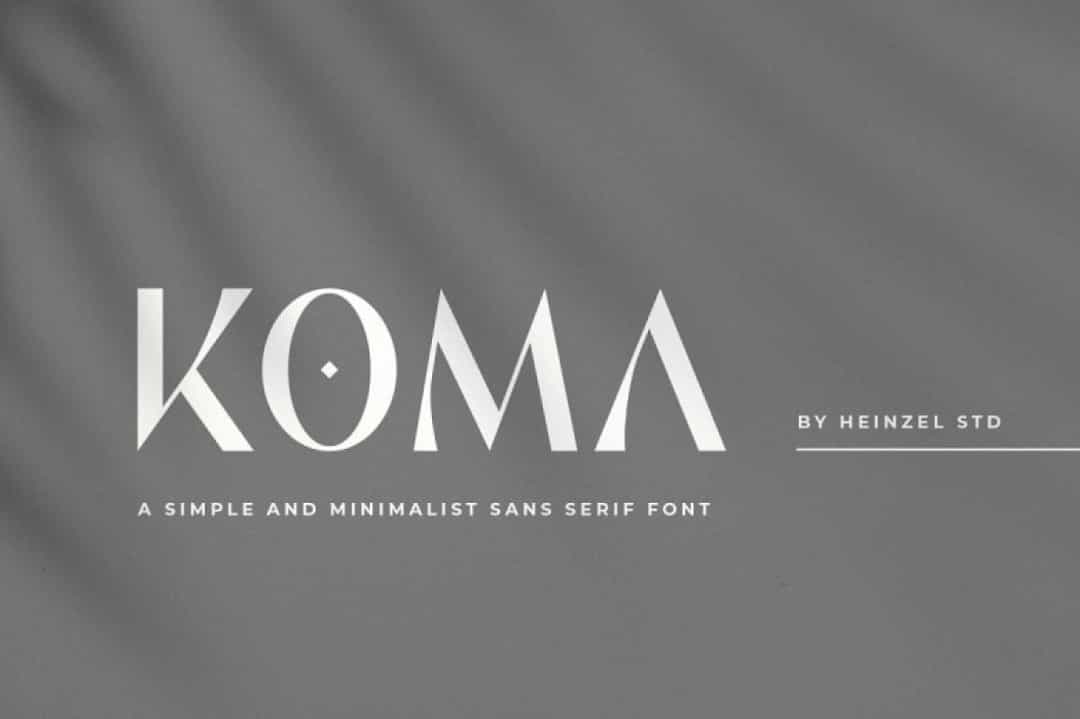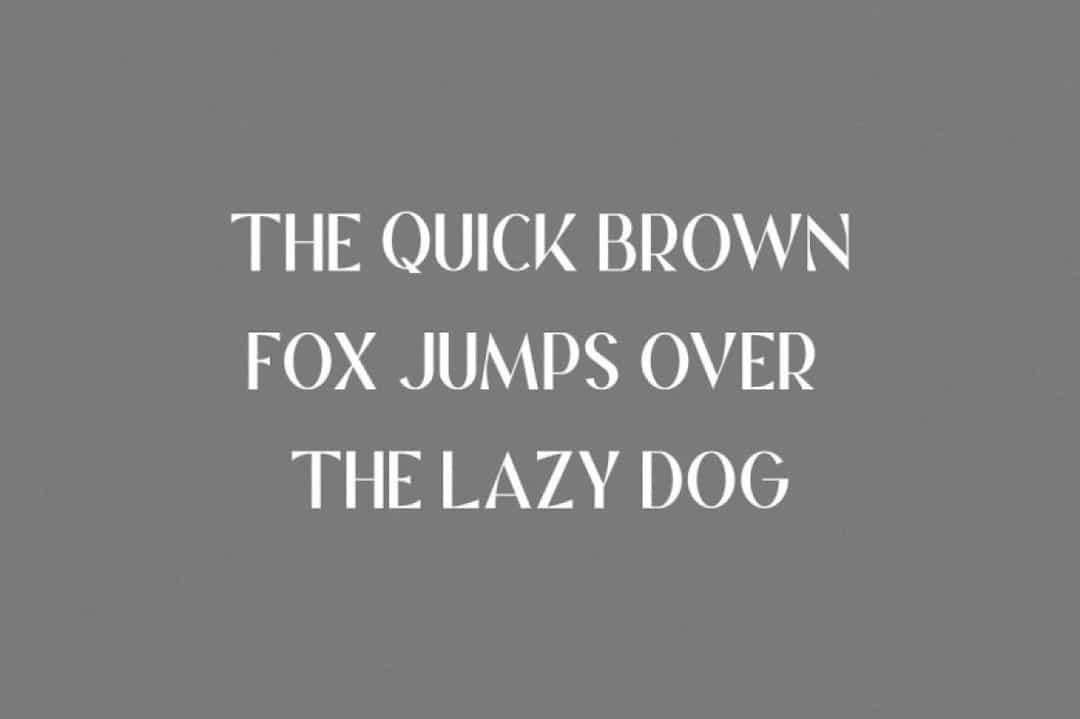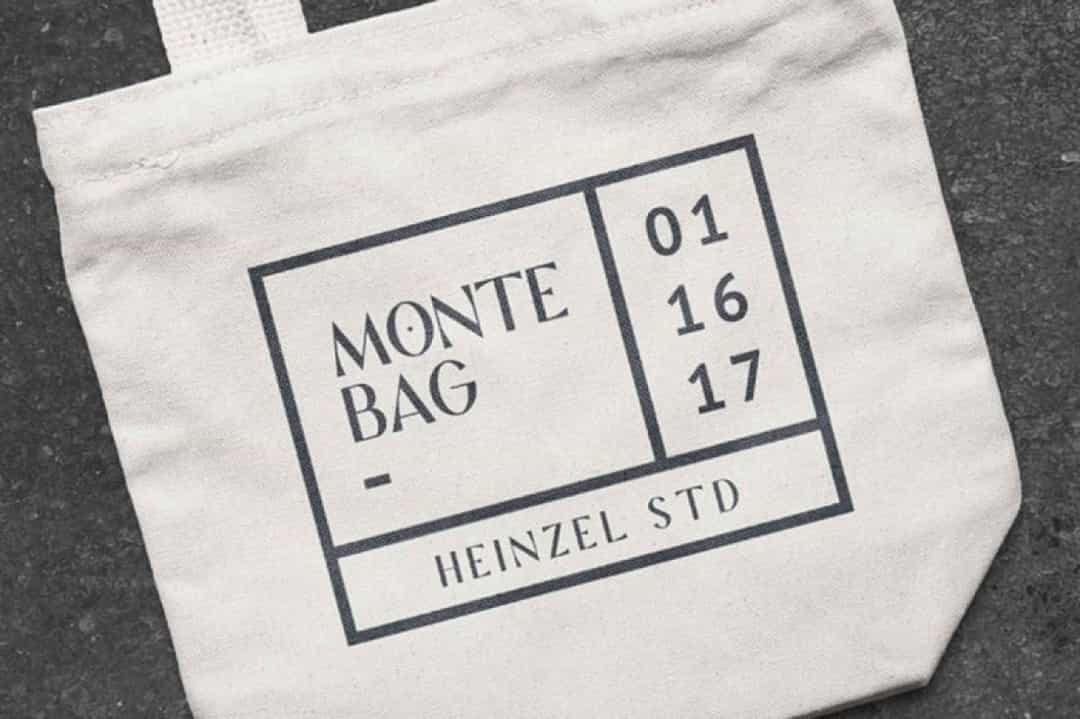
Koma – Modern Sans Serif and Minimal Character Font! Koma is a perfect font choice for printing, logo collage and body text alike! Its minimalist appearance offers a stylish modern-vintage vibe.